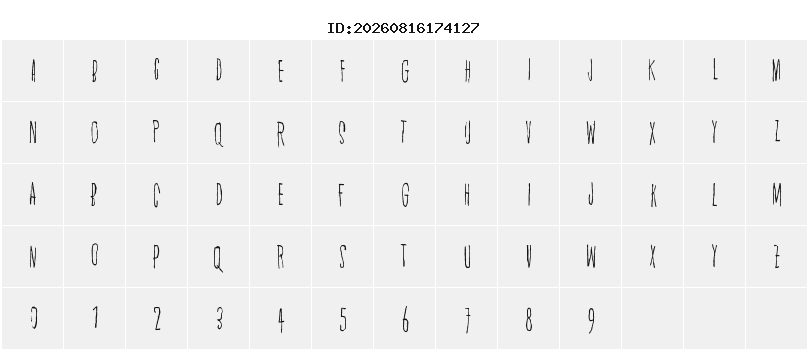
Spirit Ritual Preview
• Font Name: Spirit Ritual
• Full Font Name: Spirit Ritual
• Version: Version 1.00 April 13, 2016, initial release
• Designer: junkohanhero
About Spirit Ritual.ttf
Spirit Ritual.ttf is a modern, elegant sans-serif font designed for ultimate readability and visual harmony. Perfect for branding, headlines, web design, and print materials.